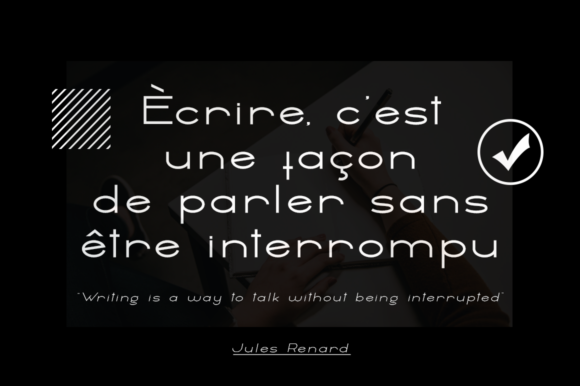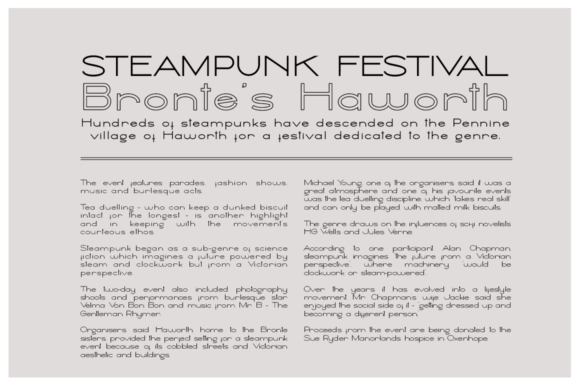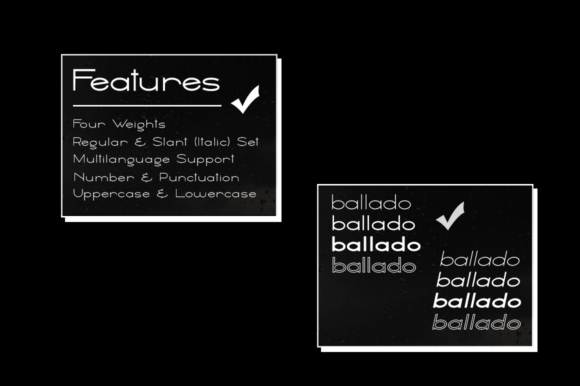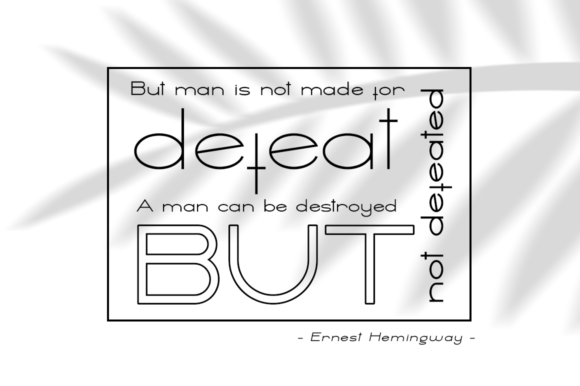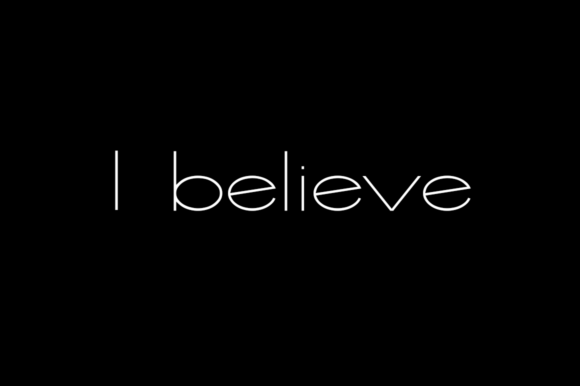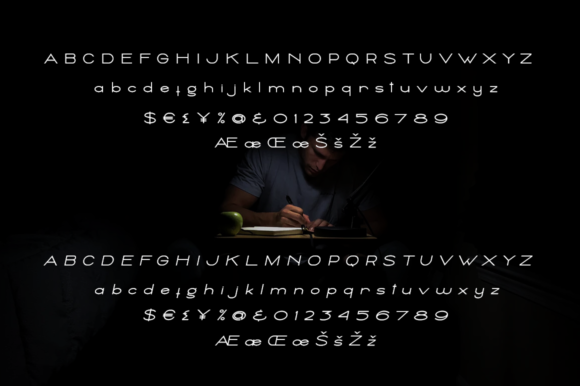
Introducing Ballado Font: The Epitome of Modern Sans Serif Elegance
In the realm of typography, fonts play a pivotal role in conveying messages, expressing creativity, and enhancing the aesthetic appeal of any design project. Among the myriad of fonts available, Ballado Font stands out as a beacon of modernity and sophistication. Described as an incredibly clean and modern sans serif font with a geometric look, Ballado is revolutionizing the way designers and crafters approach their creative endeavors.
The Essence of Ballado Font
Ballado’s design is rooted in the principles of minimalism and geometric precision. Its clean lines and sans serif structure lend it a contemporary look that is both versatile and highly legible. This font is meticulously crafted to ensure that it complements a wide range of design projects, from branding and advertising to digital media and crafting.
Key Features of Ballado Font
- Clean and Modern Design: Ballado’s design is characterized by its simplicity and modern appeal. The clean lines and geometric shapes make it perfect for projects that demand a sleek look.
- Geometric Look: The font’s geometric appearance adds a layer of sophistication and elegance, making it suitable for high-end branding and design projects.
- Sans Serif Structure: The sans serif structure of Ballado enhances its legibility, making it an excellent choice for both digital and print media.
- Versatility: Ballado’s versatility is one of its standout features. It can be used in a variety of contexts, from headings and titles to body text, without losing its impact or readability.
Applications of Ballado Font
Ballado’s wide range of applications makes it a valuable addition to any designer’s or crafter’s toolkit. Here are some of the areas where Ballado truly shines:
- Branding and Logo Design: Ballado’s modern and geometric look makes it an ideal choice for branding and logo design. It can help create a strong and memorable visual identity for businesses.
- Digital Media: In the digital realm, Ballado’s clean and legible design makes it perfect for website design, mobile apps, and digital advertising.
- Print Media: For print media, including brochures, posters, and business cards, Ballado’s geometric look and sans serif structure ensure that the message is conveyed with clarity and style.
- Crafting and DIY Projects: Beyond professional design, Ballado can also be used in crafting and DIY projects, such as handmade cards, scrapbooking, and other paper crafts, adding a touch of modern elegance.
Why Choose Ballado Font?
Choosing Ballado Font for your design projects or crafting endeavors comes with numerous benefits:
- Enhances Aesthetic Appeal: Ballado can significantly enhance the aesthetic appeal of your projects, making them stand out in a crowded marketplace.
- Improves Readability: Its clean and sans serif design ensures that your message is conveyed clearly and effectively.
- Versatile and Adaptable: Ballado’s versatility means it can be adapted to a wide range of projects and contexts.
| Author | Haksen |
In conclusion, Ballado Font is a remarkable addition to the world of typography. Its clean, modern, and geometric design makes it an invaluable resource for designers and crafters seeking to elevate their projects. With its wide range of applications and benefits, Ballado is poised to become a go-to font for anyone looking to infuse their work with a touch of modern elegance and sophistication.
Whether you’re a professional designer working on a high-profile branding campaign or a crafter looking to add a modern twist to your handmade cards, Ballado Font is sure to meet and exceed your expectations. Embrace the power of Ballado and discover a new world of typographic possibilities.